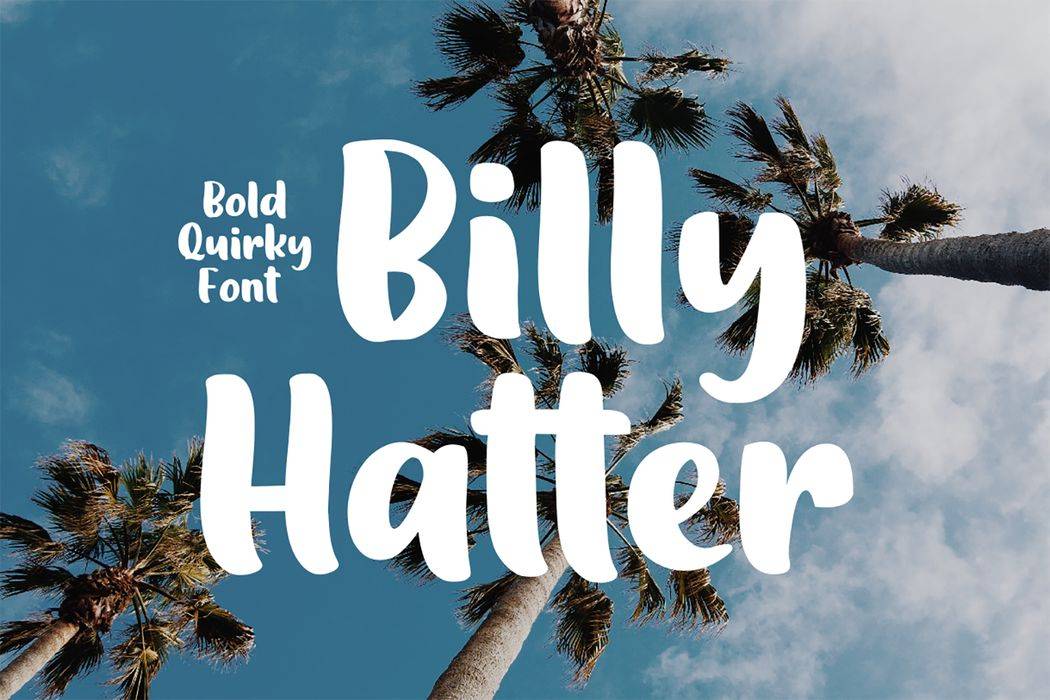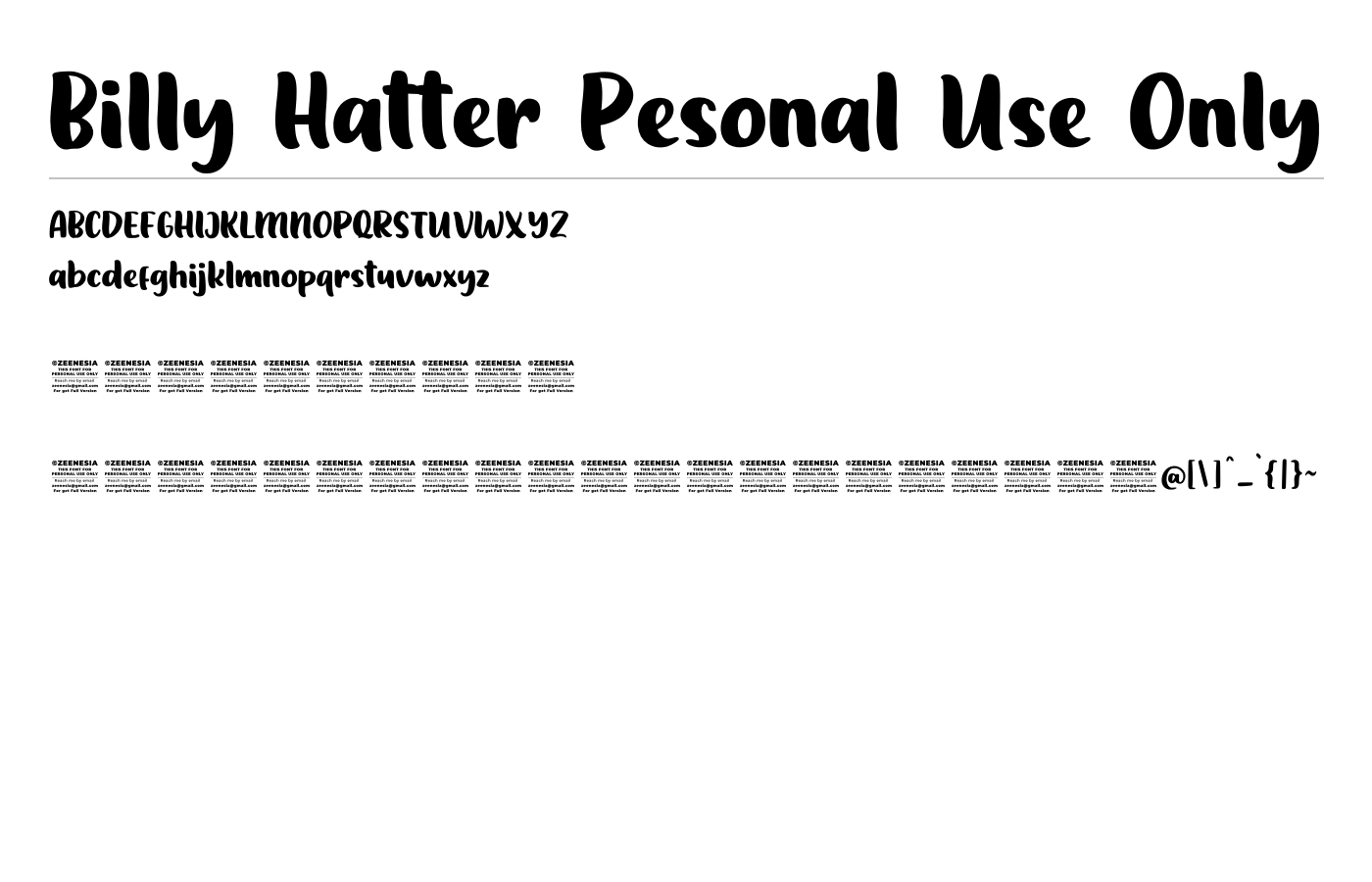
Billy Hatter is a playful and casual handwritten sans serif font with a bold weight and rounded, friendly letterforms. Its lively style and informal feel make it ideal for creative projects, children’s designs, and brand identities that want to convey warmth and approachability. This font works well in headlines, logos, and packaging where a fun and personal touch is desired.
Billy Hatter Font
About Billy Hatter Font
| Font family | Billy Hatter Font |